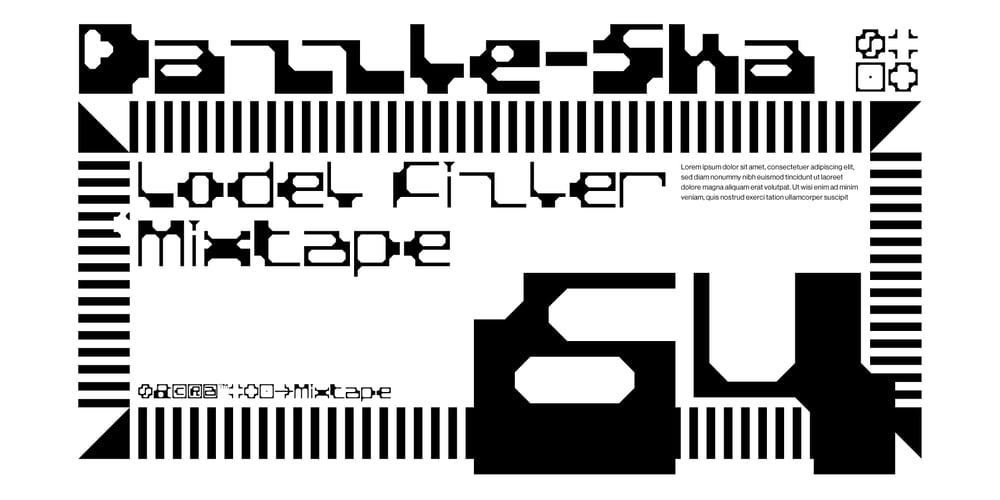
BD LoFi Font Family was designed by Lorenz (Lopetz) Gianfreda and published by Typedifferent. BD LoFi contains 3 styles and family package options. The BD LoFi typeface was originally designed on an Amiga 1200 with TypeSmith in 1997. In 2023 BD LoFi received an update with a wider language support and a variable version with a bolder look.